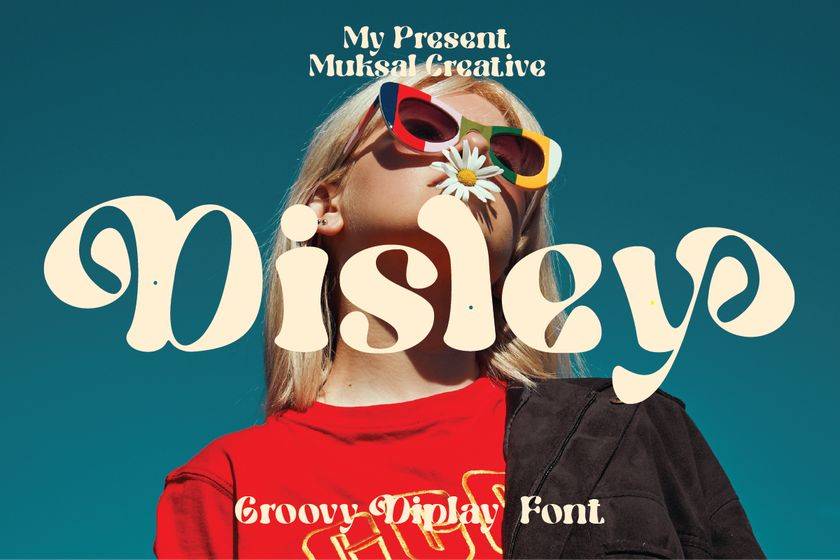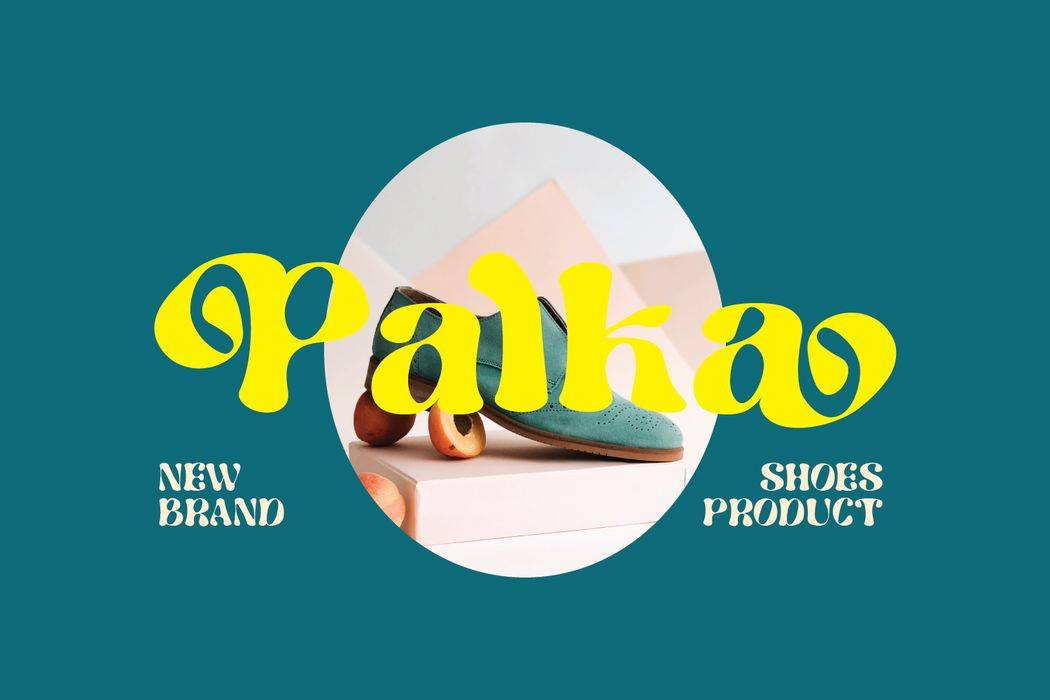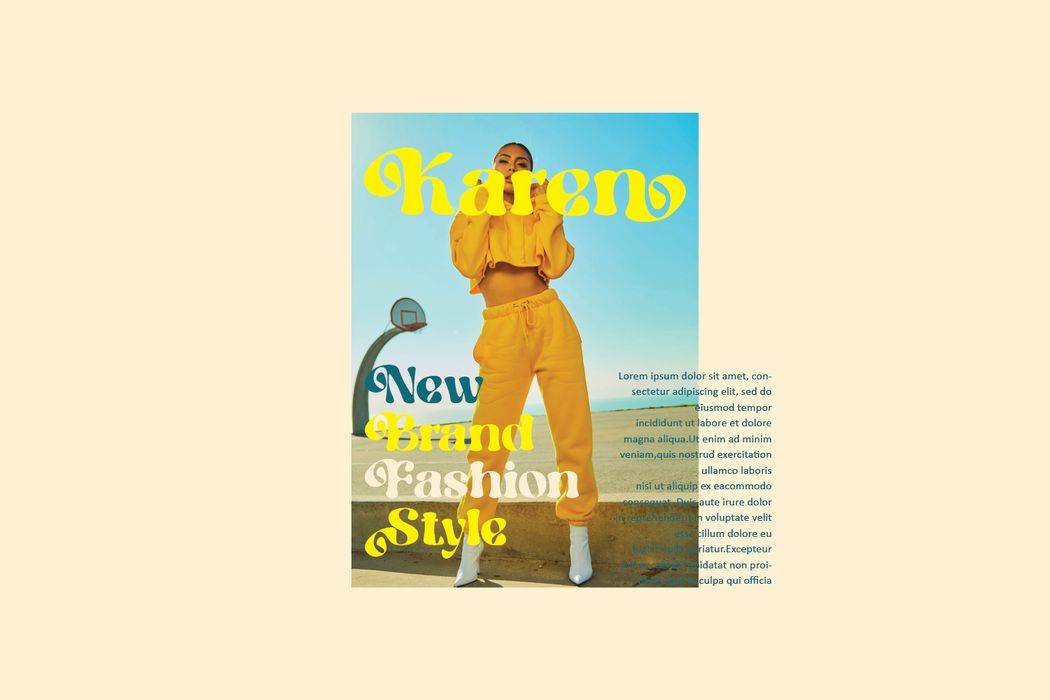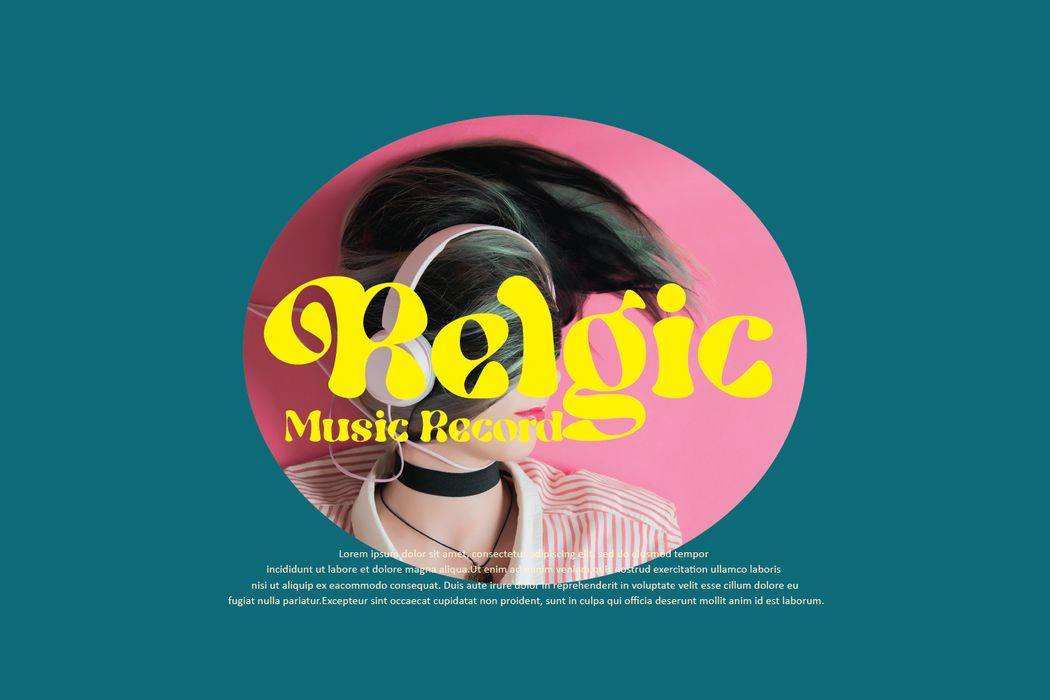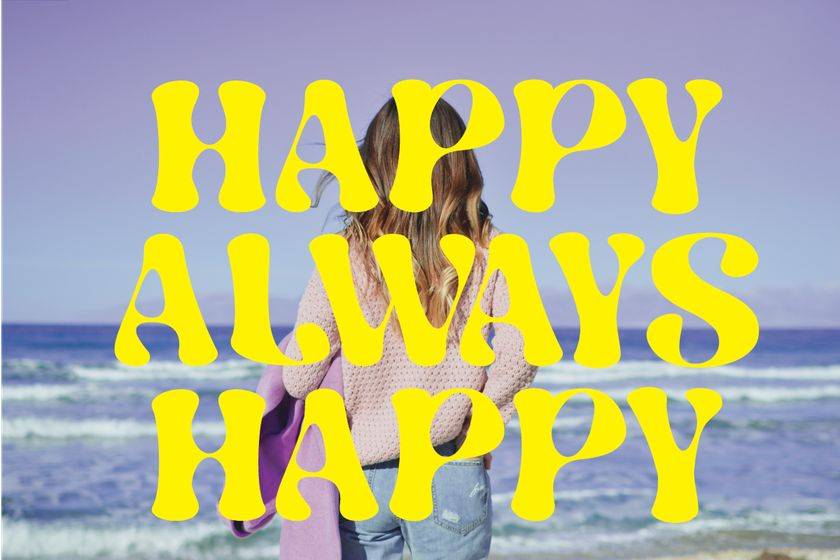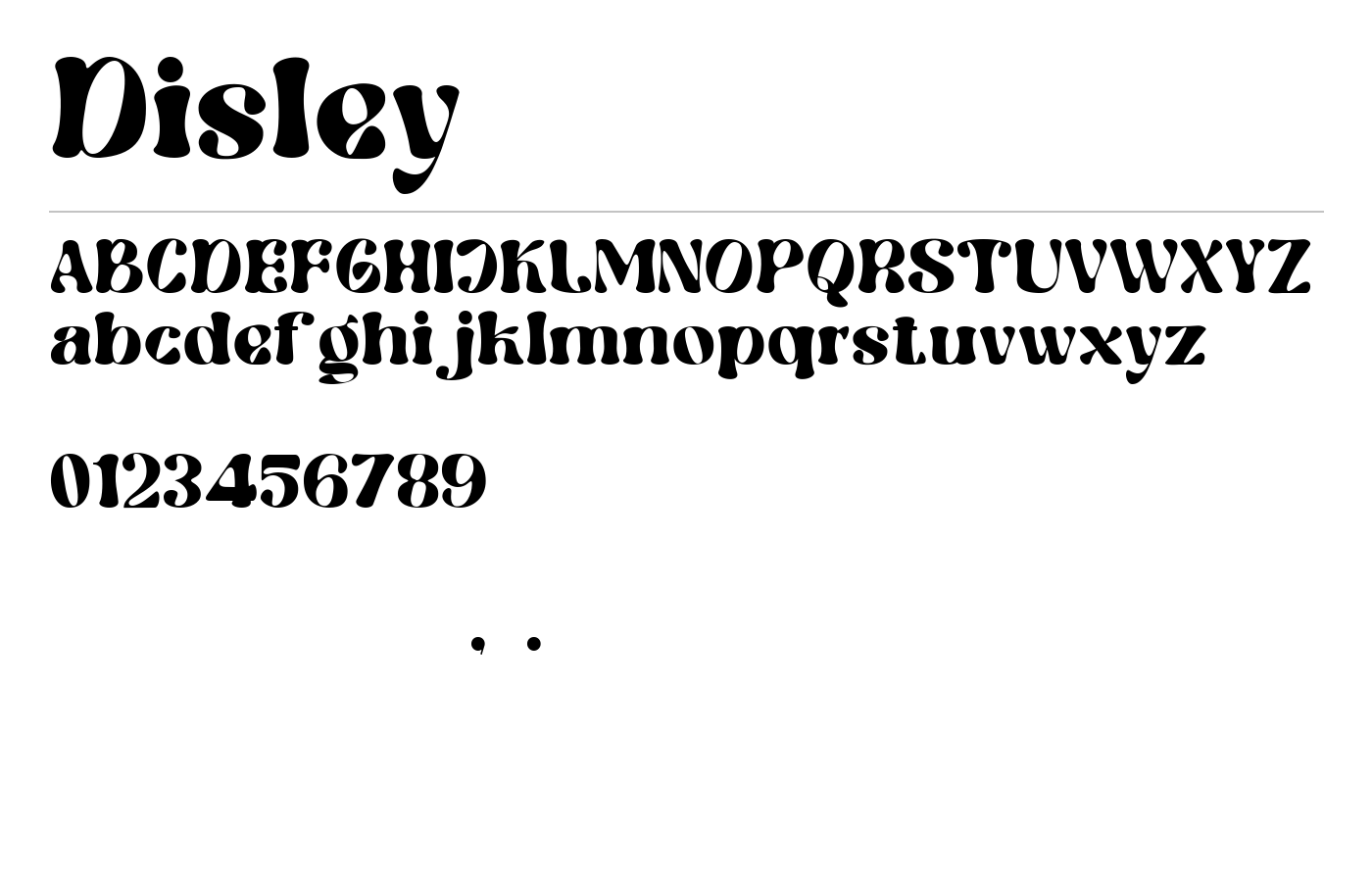
Disley is a bold, playful serif font with a distinct vintage vibe, featuring heavy weight and high contrast between thick and thin strokes. Its unique, curvy letterforms and bracketed serifs give it a whimsical, decorative feel perfect for eye-catching headlines, branding, and packaging that seek a retro or artistic personality. This font works well for projects aiming to stand out with character and charm, especially in creative and lifestyle-oriented contexts.
Disley Font
About Disley Font
| Font family | Disley Font |
| Designer | Muksal Creative |